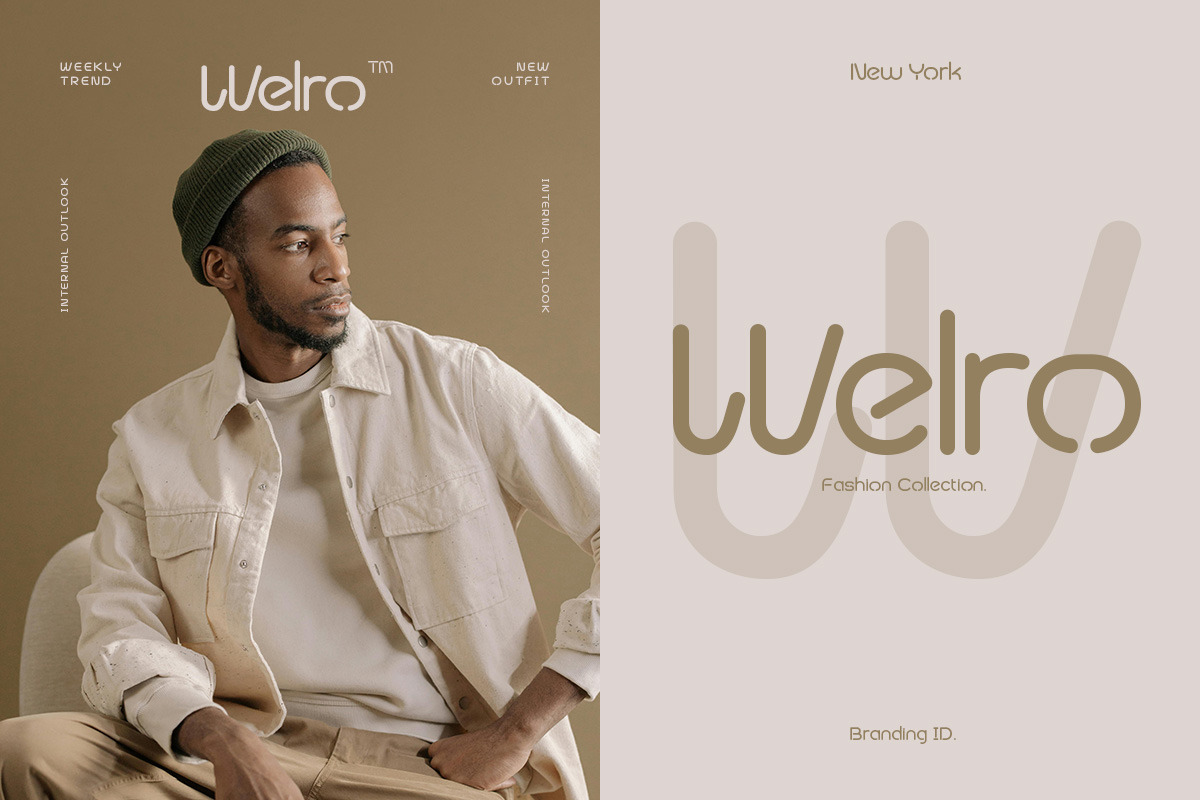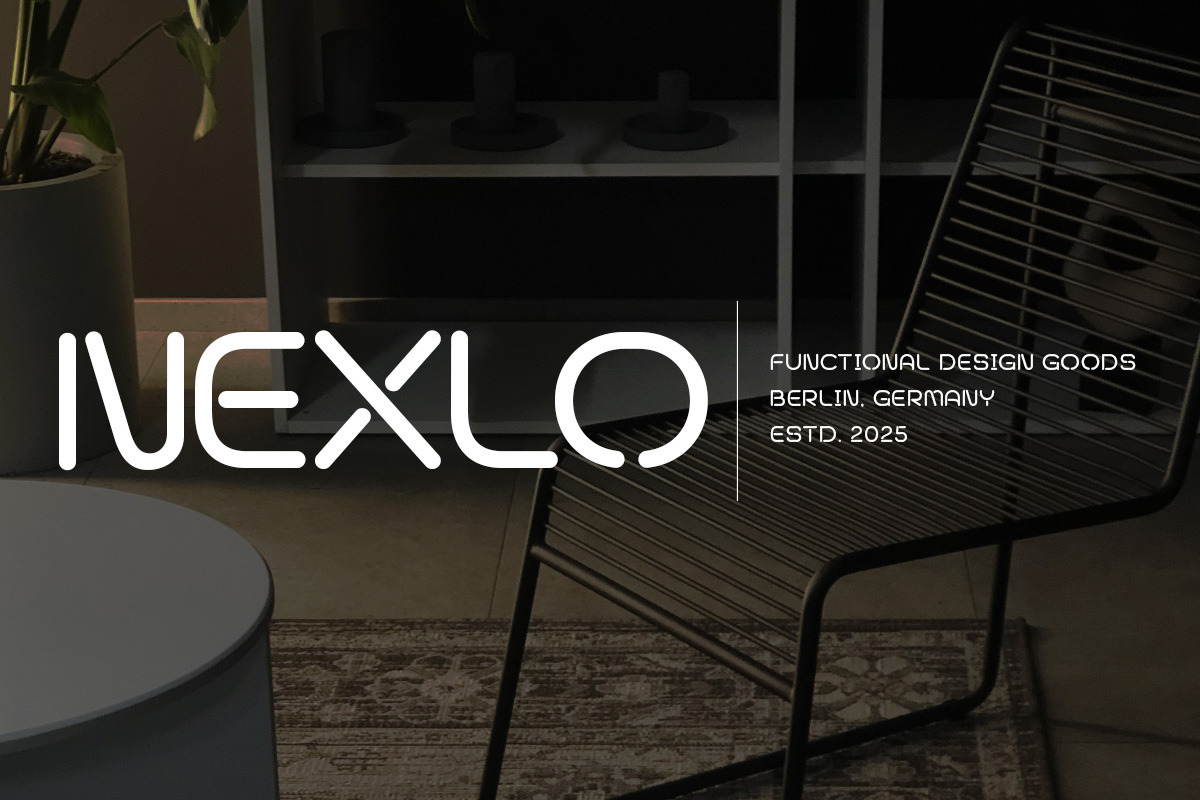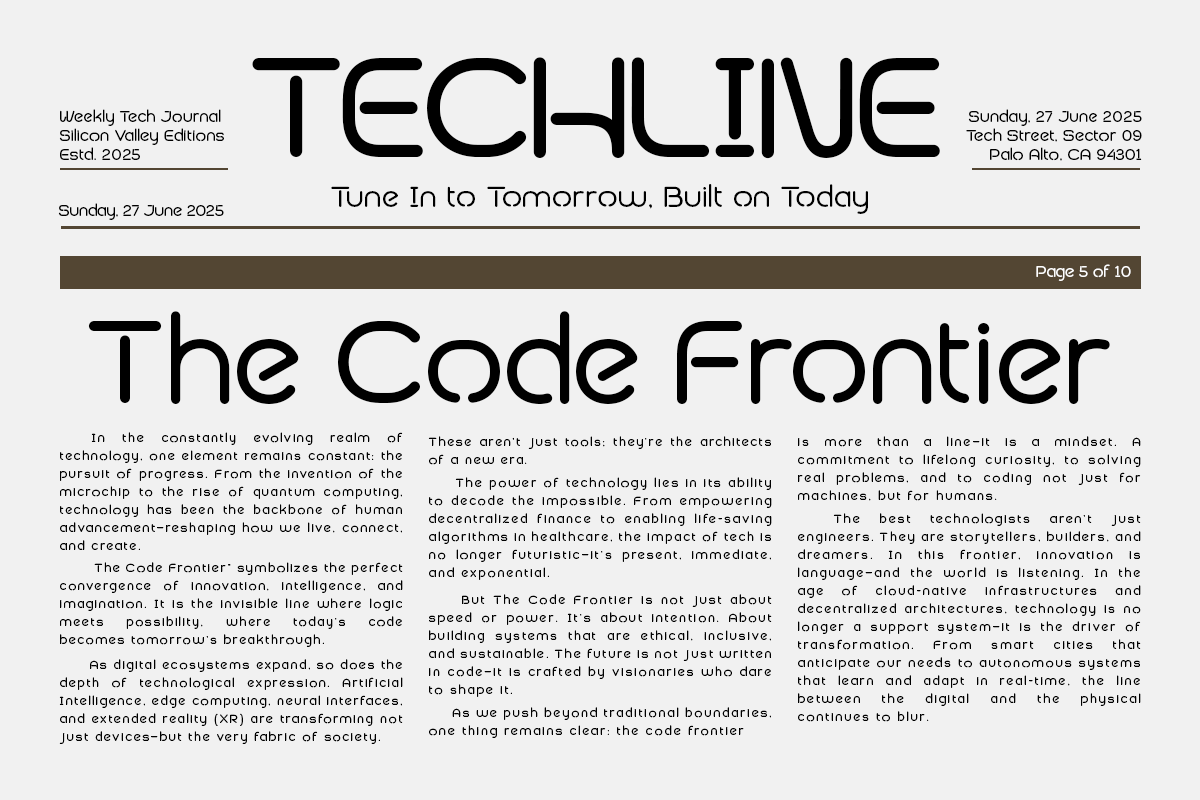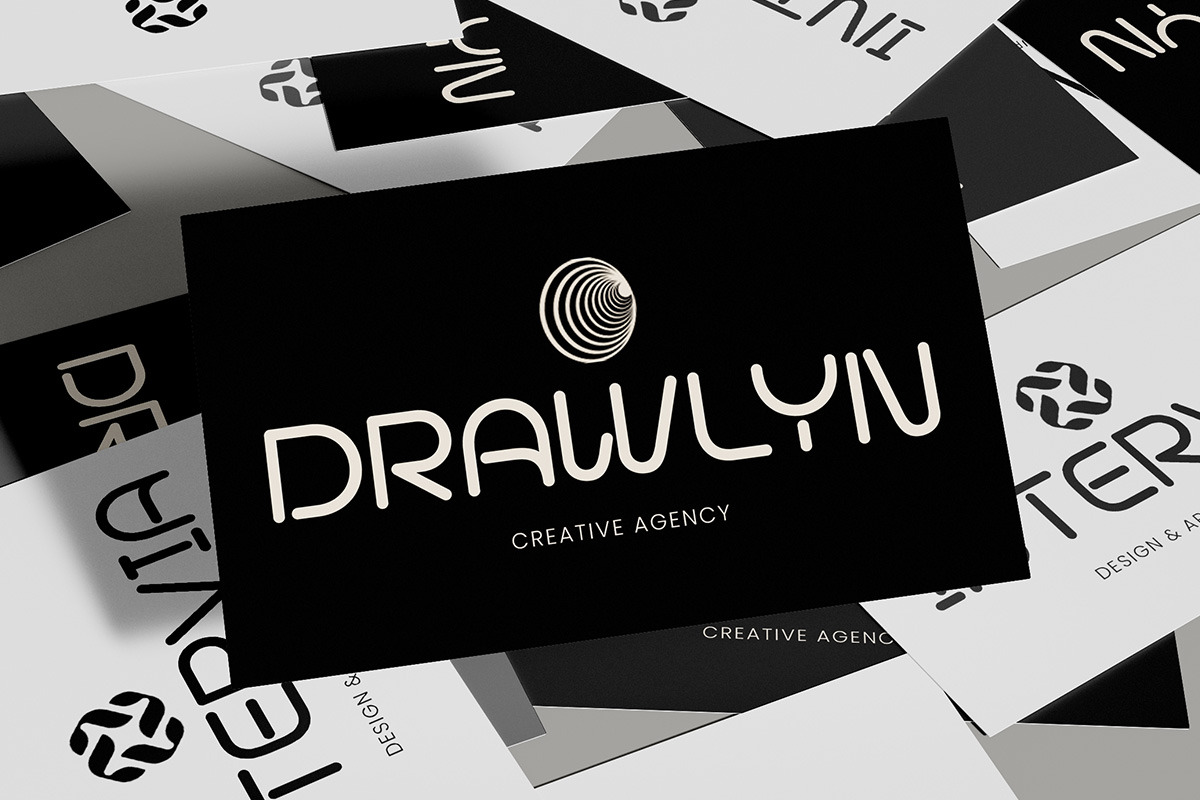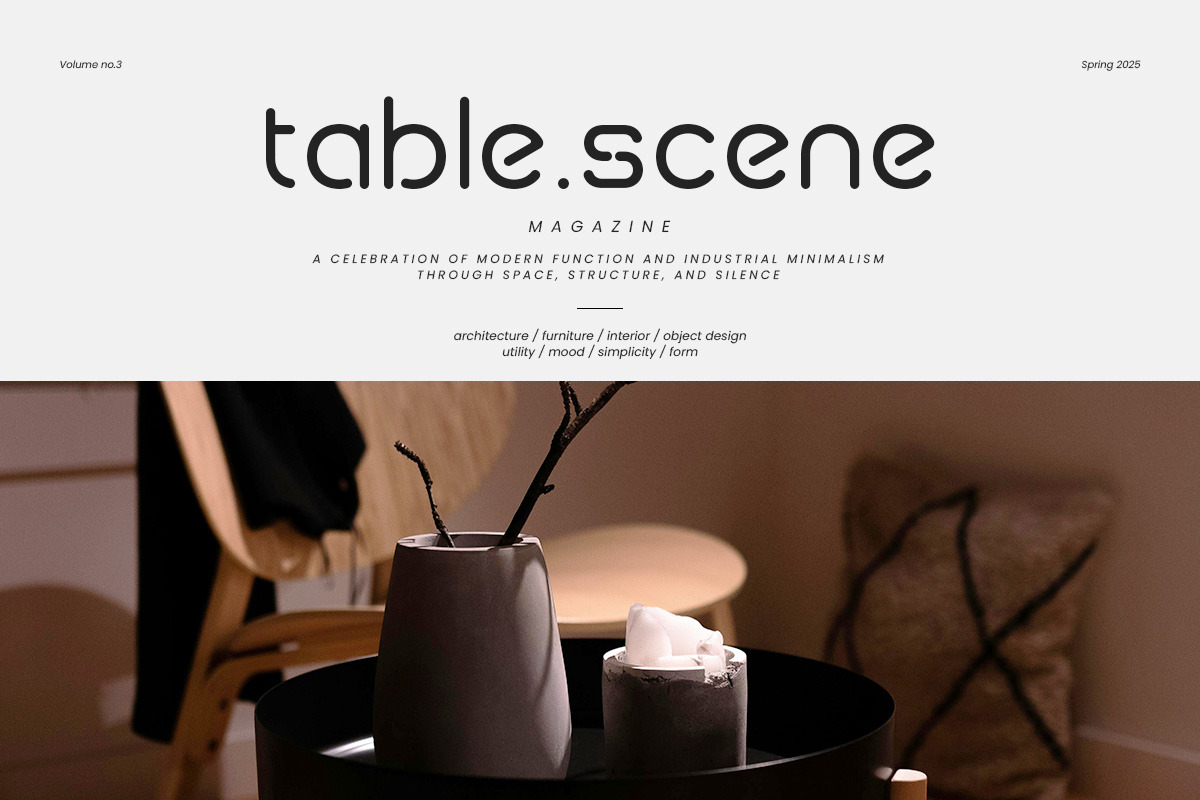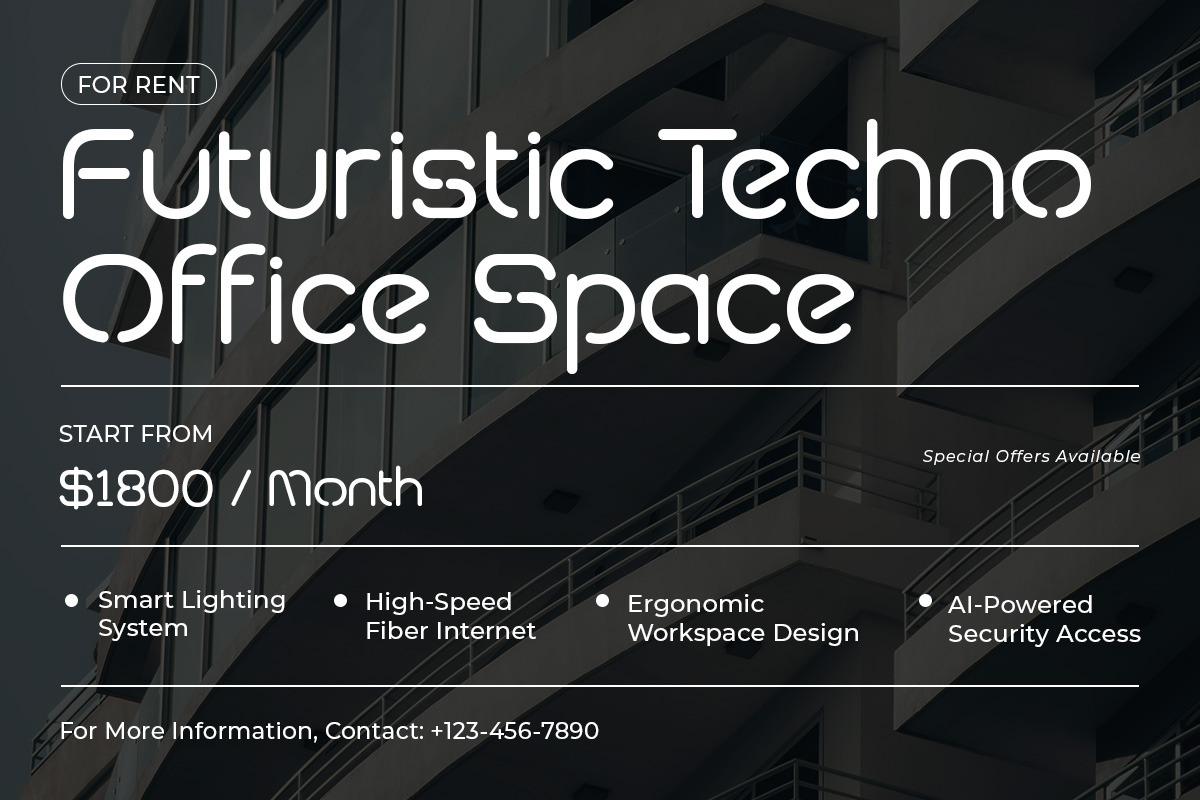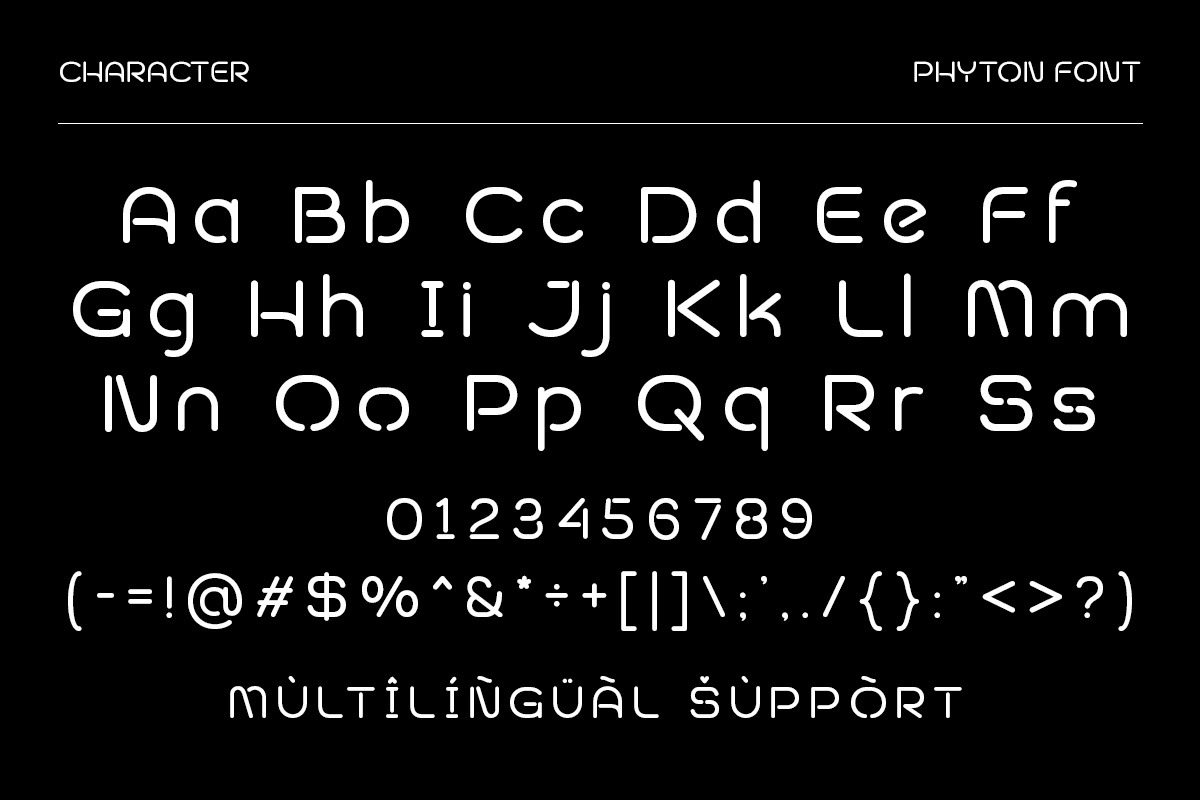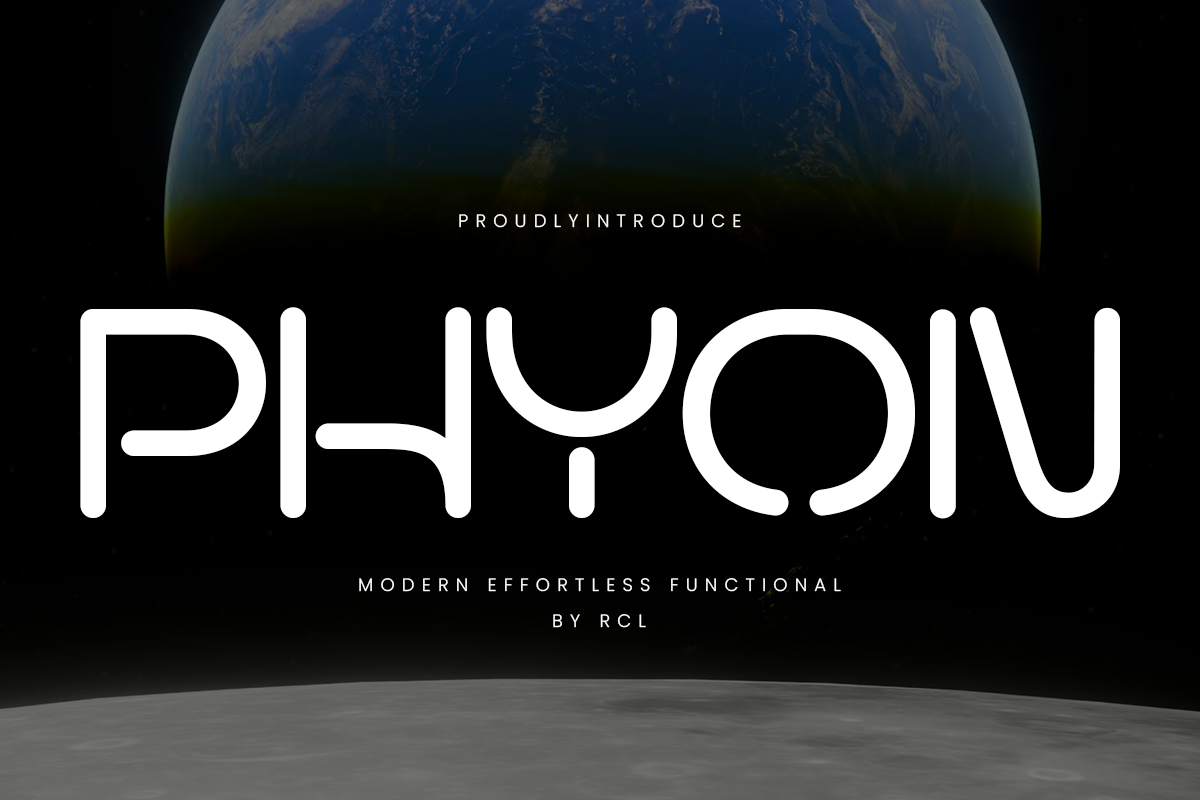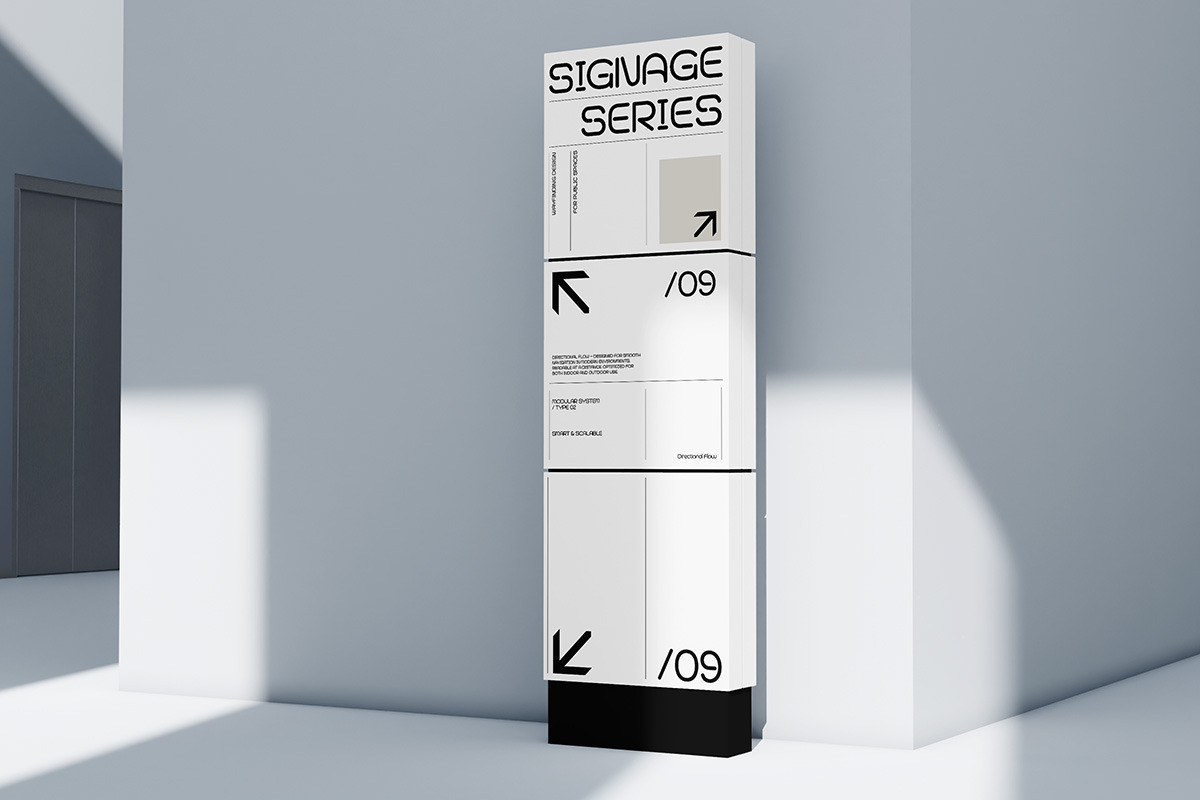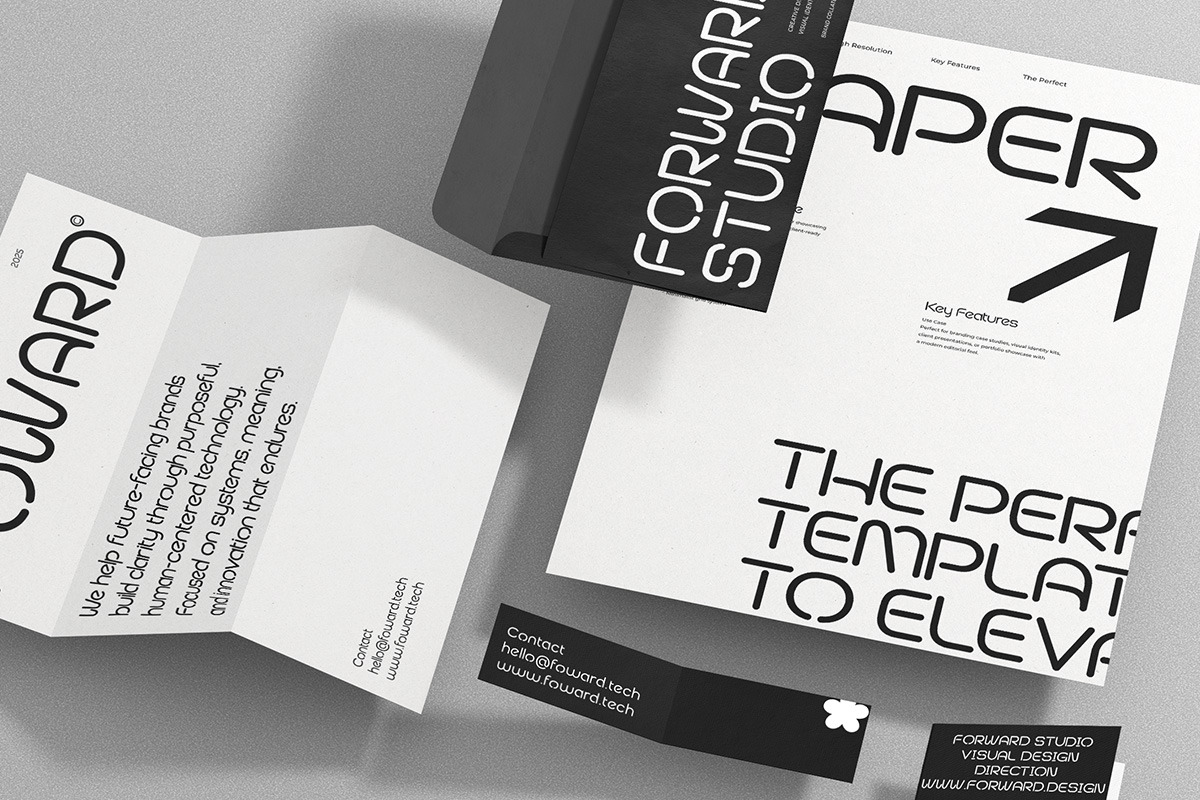
Phyon – Rounded Futuristic Sans Type
Phyon – a futuristic rounded sans serif font designed for the digital age.
Phyon combines sleek geometry with modern, effortless curves to deliver a typeface that feels both professional and visionary. Inspired by cutting-edge technology, innovation, and clean industrial design, every character in Phyon is crafted to bring a sense of progress and clarity.
Whether you’re working on UI/UX design, branding for a startup, digital interfaces, or futuristic posters, Phyon offers the perfect balance of readability and personality. Its smooth, modern forms make it ideal for product presentations, tech ecosystems, sci-fi graphics, space-inspired visuals, or any creative project that looks ahead.
- Clean and smooth strokes
- Rounded terminals
- Perfect spacing and kerning
- Technology branding & UI/UX
- Futuristic posters & covers
- Mobile apps & interfaces
- Science & space themed visuals
- Editorial layouts & web design